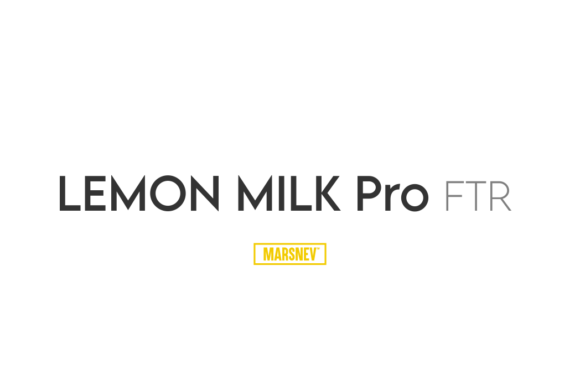
Welcome to the world of Lemon Milk Pro FTR Font, the latest addition to the Fonts For The Rest™ family! Our team has carefully crafted this sans serif typeface to offer you the best design experience you could ever imagine.
Lemon Milk Pro FTR is a font that was designed with you in mind. It is a typeface that is versatile, and perfect for all your creative projects. Whether you're designing a website, a logo, a brochure, or anything else, Lemon Milk Pro FTR will make your design stand out.
With its unique style and clean lines, this font is perfect for conveying a sense of modernity and professionalism. It is also highly legible, which makes it ideal for use in body text or headlines. So, if you're looking for a font that will elevate your design, look no further than Lemon Milk Pro FTR.
But that's not all, Lemon Milk Pro FTR has a unique cultural heritage. It is inspired by the vibrant and colorful street art that can be found in cities all around the world. This font will bring a new level of energy and excitement to your projects, making it the perfect choice for anyone looking to add some personality and creativity to their designs.
In addition, Lemon Milk Pro FTR is highly customizable, which means you can use it to create a unique look and feel for your brand. You can play around with the font's weight, style, and color to create something that truly reflects your personality and your brand's values.